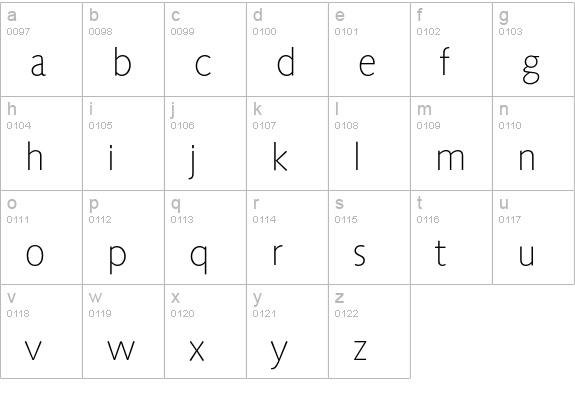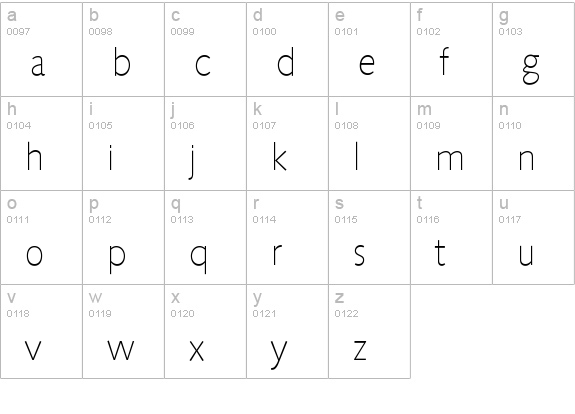
Introducing Saxony-Xlight, a contemporary and elegant font that effortlessly combines sophistication with readability. Designed with a delicate touch, Saxony-Xlight is perfect for adding a touch of class to your design projects, whether it's for branding, invitations, or editorial layouts. This font exudes a sense of refined beauty, with its thin and graceful strokes that flow harmoniously across the page. The slender letterforms create an air of elegance, making Saxony-Xlight the ideal choice for those seeking a font that exudes finesse and sophistication. But what sets Saxony-Xlight apart is not just its impeccable design, but also its availability as a free download. Yes, you heard that right – Saxony-Xlight is freely available to download at FontsMarket.com. Now you can elevate your design projects without having to compromise on quality or budget. With its wide range of international characters and language support, Saxony-Xlight ensures seamless integration into any design project, no matter the language or region. Its versatility allows for endless creative possibilities, making it a must-have font for designers and creatives alike. So why wait? Experience the beauty and versatility of Saxony-Xlight today. Download it for free at FontsMarket.com and unlock a world of elegance and sophistication for your design projects. Embrace the power of typography and let Saxony-Xlight be your secret weapon in creating stunning and impactful designs.